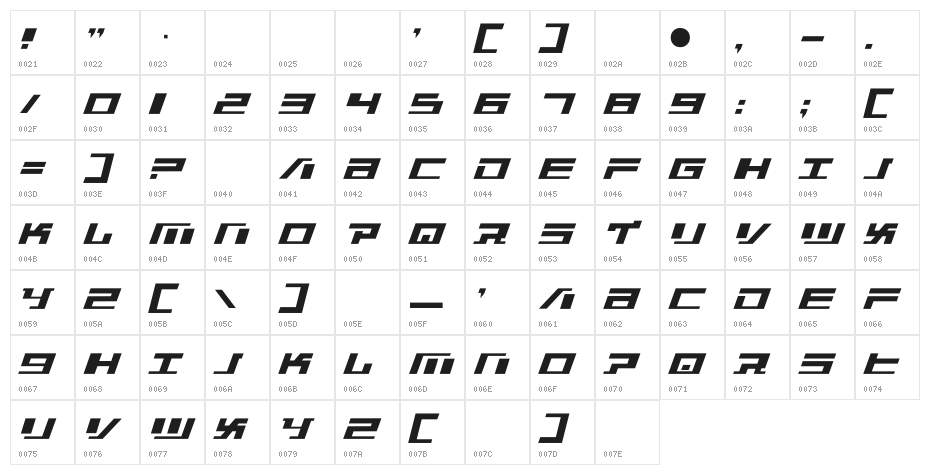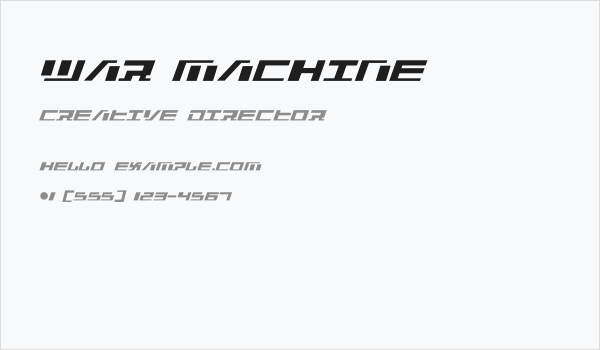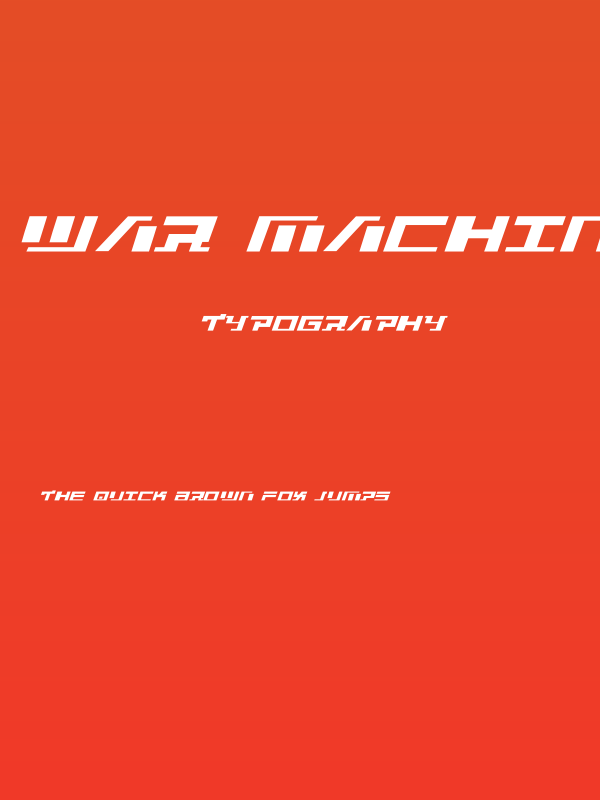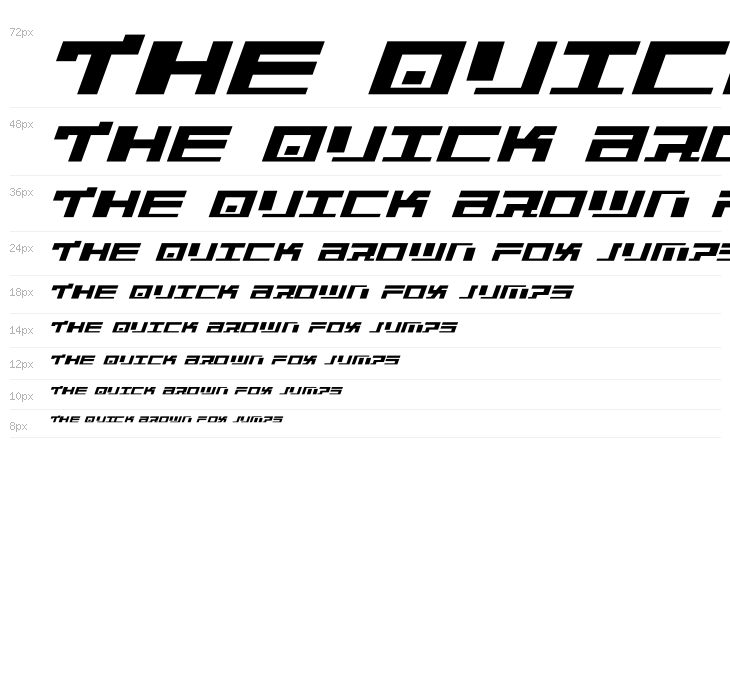
War Machine Font
War Machine Description
This font exhibits a bold and futuristic design, characterized by its angular and geometric letterforms. The characters are constructed with sharp edges and a consistent slant, giving them a dynamic and aggressive appearance. The uppercase and lowercase letters share a uniform style, maintaining the same angularity and boldness. Numbers and special characters are designed to match the overall aesthetic, ensuring a cohesive look across all glyphs. The font's strong presence makes it suitable for projects that require a modern and impactful visual statement.
| Proposed Projects | Ideal for sci-fi themed designs, video game titles, movie posters, and branding that requires a modern and edgy look. |